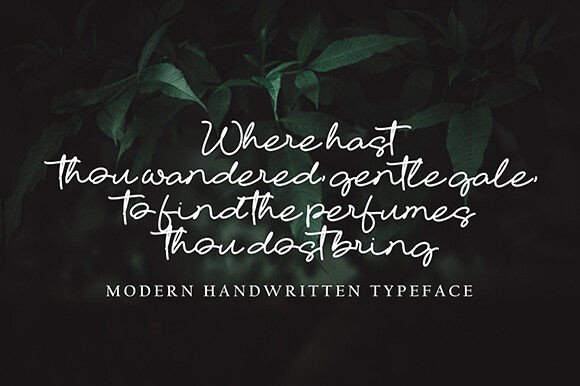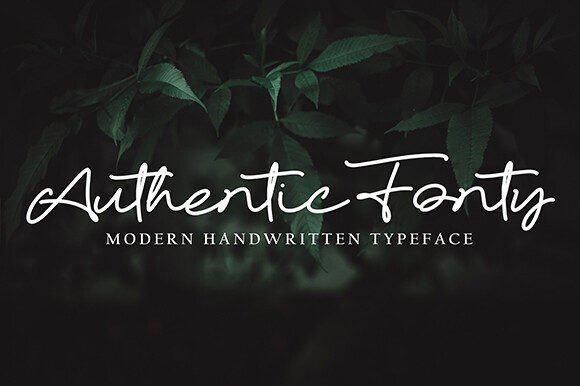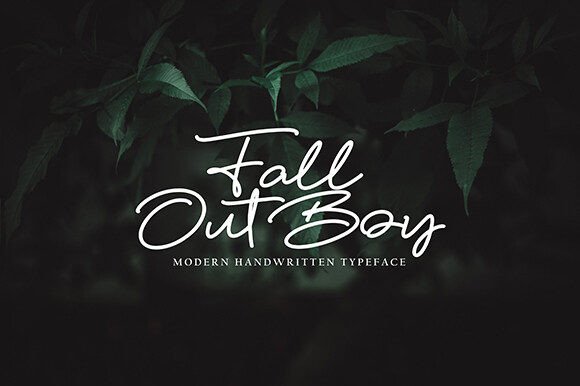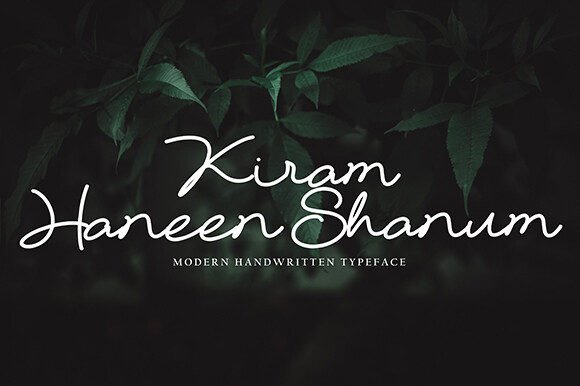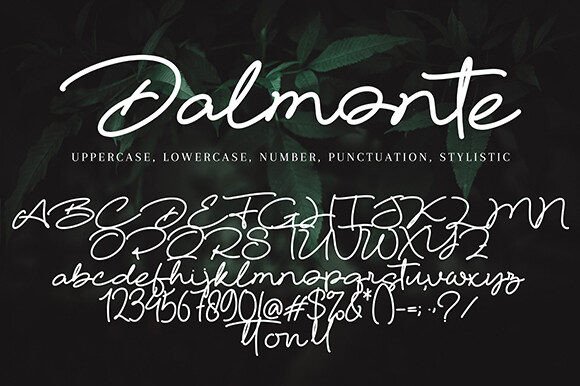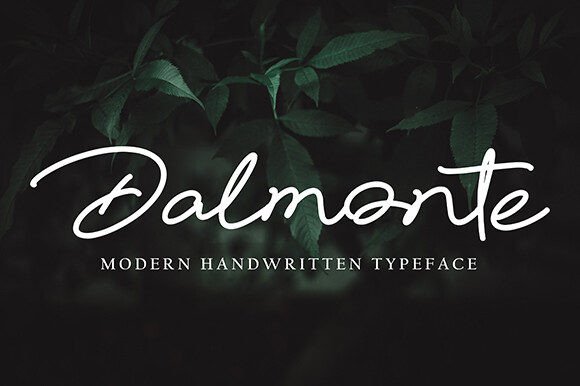
Introducing Dalmonte Font: Elevate Your Designs with Elegance and Sophistication
In the world of typography, few fonts manage to capture the essence of elegance and sophistication as effectively as Dalmonte. This stylish and incredibly elegant script font has been making waves in the design community, and for good reason. Whether you’re working on wedding invitations, thank you cards, quotes, greeting cards, logos, business cards, or any other design that requires a handwritten touch, Dalmonte is the perfect choice.
What Makes Dalmonte Stand Out?
Dalmonte’s unique charm lies in its beautiful, flowing script that exudes luxury and refinement. Each letter is meticulously crafted to ensure a smooth, connected feel that is both classic and contemporary. This font is not just a typeface; it’s an experience. It brings a level of sophistication and personal touch to any design, making it instantly more engaging and memorable.
One of the key advantages of Dalmonte is its versatility. It’s a font that can adapt to various design needs and styles. Here are some of the many ways you can use Dalmonte to elevate your designs:
- Wedding Invitations: Add a touch of romance and elegance to your wedding invitations. Dalmonte’s beautiful script makes it perfect for formal and semi-formal wedding announcements.
- Thank You Cards: Express gratitude in style with beautifully crafted thank you cards that feature Dalmonte’s elegant lettering.
- Quotes and Posters: Bring quotes to life with a font that adds a touch of sophistication and makes the text stand out.
- Greeting Cards: Whether it’s a birthday, anniversary, or holiday greeting, Dalmonte adds a personal and heartfelt touch to your cards.
- Logos and Branding: For businesses looking to convey elegance, luxury, or a personal touch, Dalmonte can be a great choice for logos and branding materials.
- Business Cards: Stand out in the professional world with business cards that feature a sophisticated and stylish font.
Why Designers and Crafters Love Dalmonte
Dalmonte has quickly become a favorite among designers and crafters for several reasons:
- Ease of Use: Despite its elegant appearance, Dalmonte is surprisingly easy to read and use in various contexts.
- High Versatility: Its adaptability to different design projects makes it a valuable addition to any designer’s toolkit.
- Unique Aesthetic: Dalmonte offers a unique aesthetic that can help designs stand out in a crowded marketplace.
- Support for Various Languages: For designers working on international projects, Dalmonte’s support for multiple languages is a significant advantage.
Tips for Using Dalmonte Effectively
To get the most out of Dalmonte, consider the following tips:
- Pair with Complementary Fonts: For maximum impact, pair Dalmonte with simpler, sans-serif fonts for contrast.
- Adjust Letter Spacing: Tweak the letter spacing to ensure optimal readability and aesthetic appeal.
- Consider Size: Dalmonte’s elegance shines at larger sizes, but it’s also effective in smaller sizes when used judiciously.
Dalmonte is more than just a font; it’s a design statement. Its elegant script and versatile nature make it an indispensable tool for designers and crafters looking to add a touch of sophistication to their projects. Whether you’re designing for luxury brands, personal projects, or anything in between, Dalmonte is sure to elevate your designs to new heights of elegance and refinement.